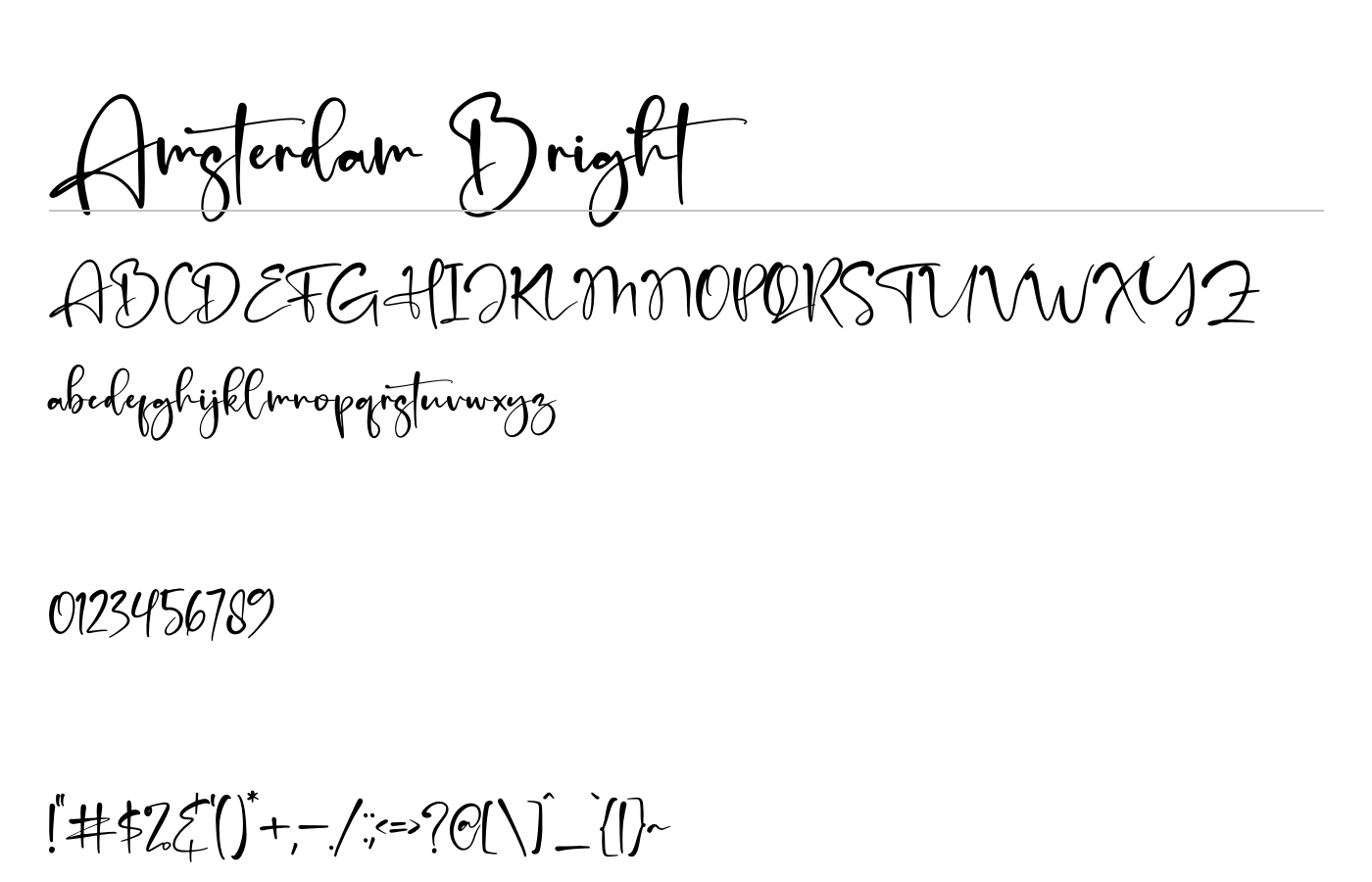
Amsterdam Bright is a lively and elegant script font characterized by its fluid, hand-drawn style with tall, sweeping ascenders and whimsical stroke variations. It exudes a playful yet sophisticated charm, making it ideal for creative branding, invitations, and fashion-related projects where personality and a personal touch are desired. This font works beautifully in logos and headlines that seek to convey warmth and artistic flair.
Amsterdam Bright Font
About Amsterdam Bright Font